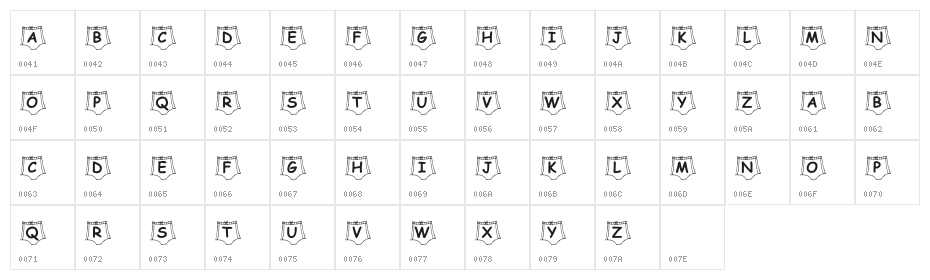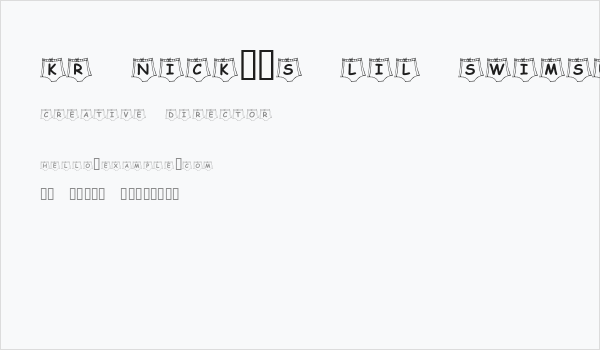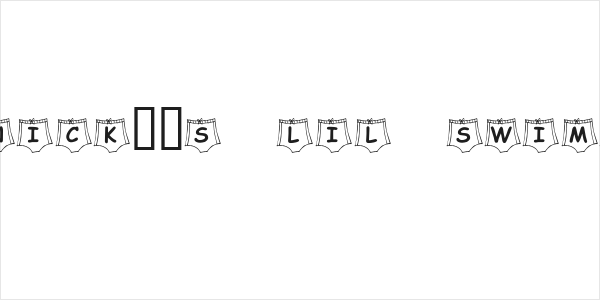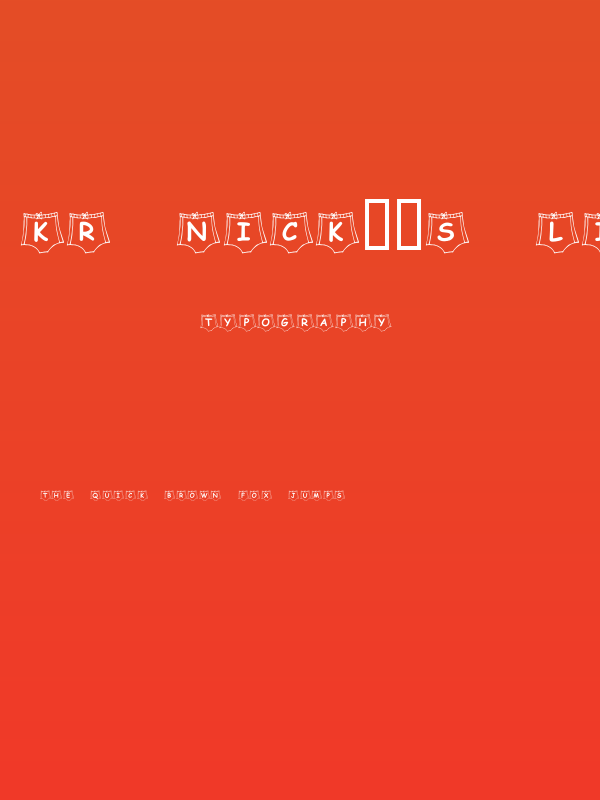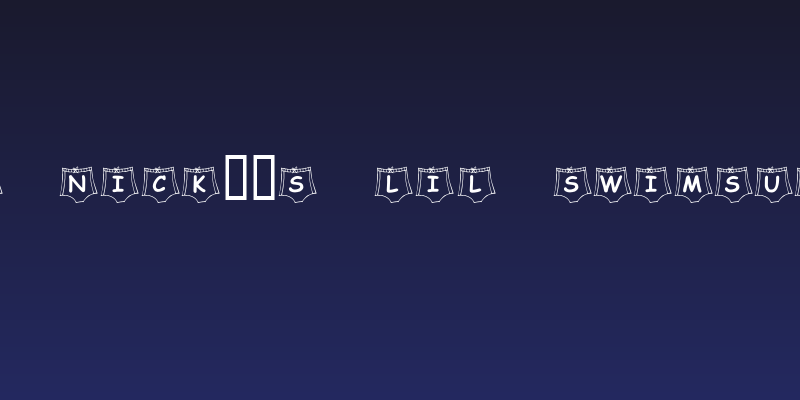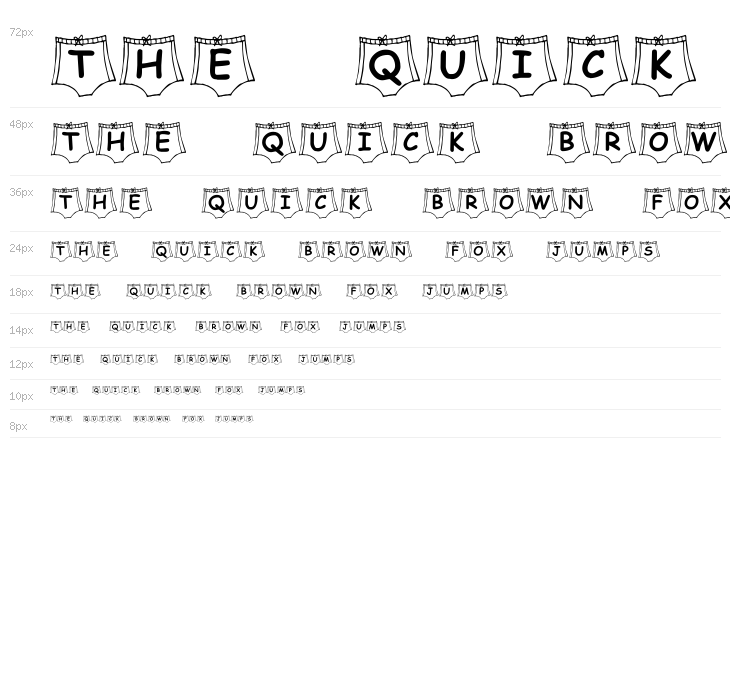
KR Nick's Lil Swimsuit Font
This playful and whimsical font features each character enclosed within a stylized swimsuit design, adding a unique and fun element to the text. The letters are bold and clear, making them easily readable despite the decorative border. The uppercase and lowercase alphabets are consistent in style, maintaining the swimsuit theme throughout. The numbers and special characters are missing, which limits its use to alphabetic text. This font is ideal for projects that require a lighthearted and summery vibe, such as beach party invitations, children's event posters, or playful branding materials.
| Proposed Projects | Ideal for beach-themed events, children's parties, and playful branding. |